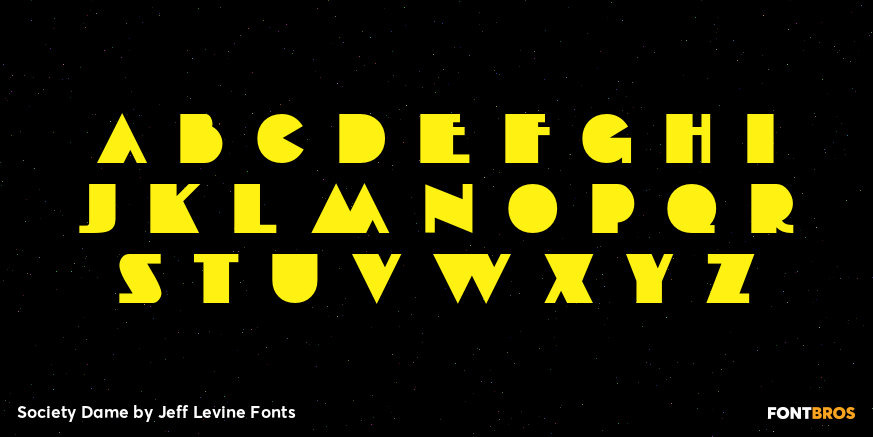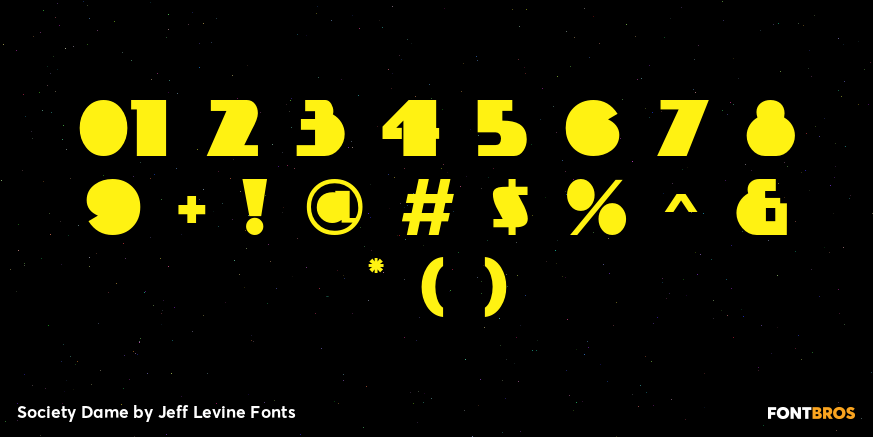
Society Dame
Society Dame JNL is a stripped-down version of Jeff Levine's Florida JNL without all of the extra embellishments. Retaining all of the same characteristics, this solid letter typeface is a perfect compliment to the original, or as a stand-alone design that fully embodies the Art Deco period.